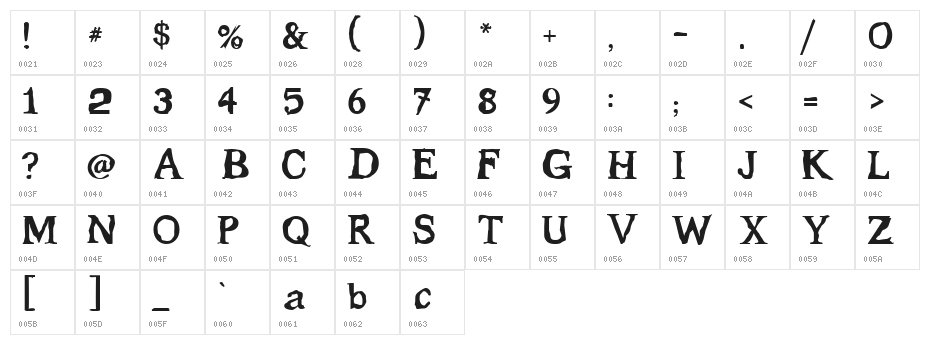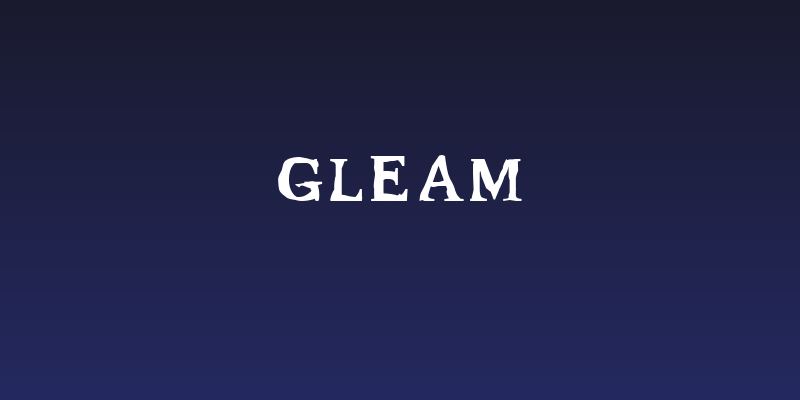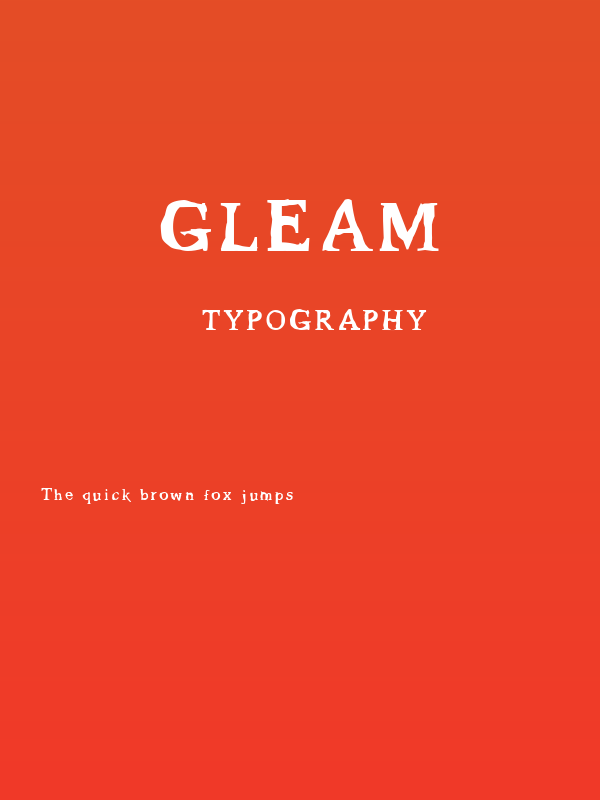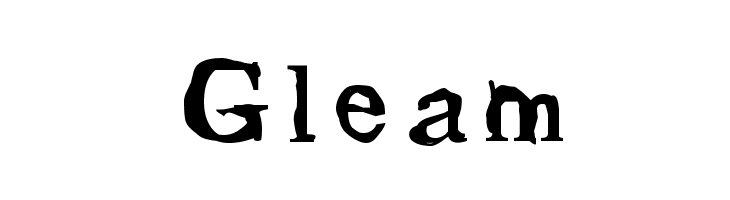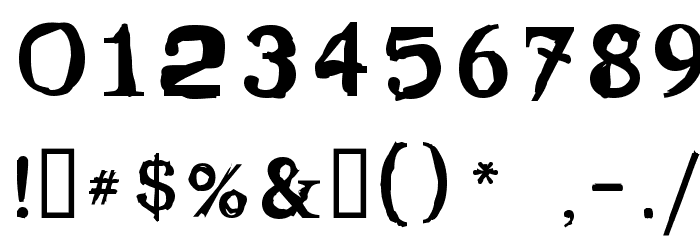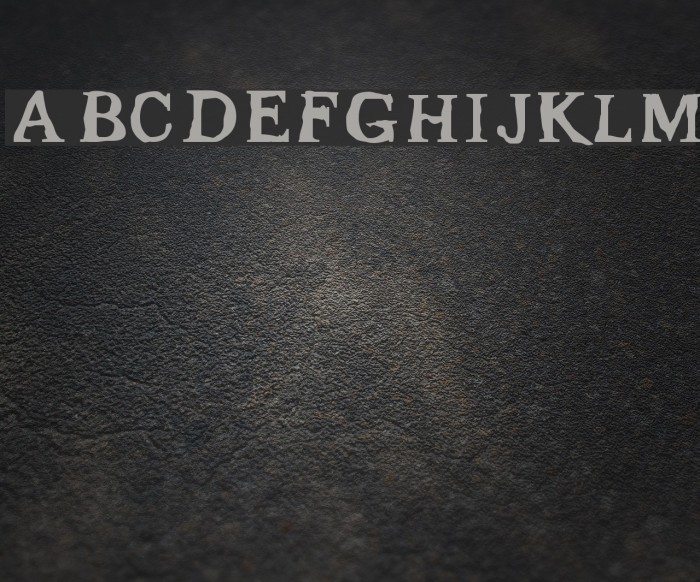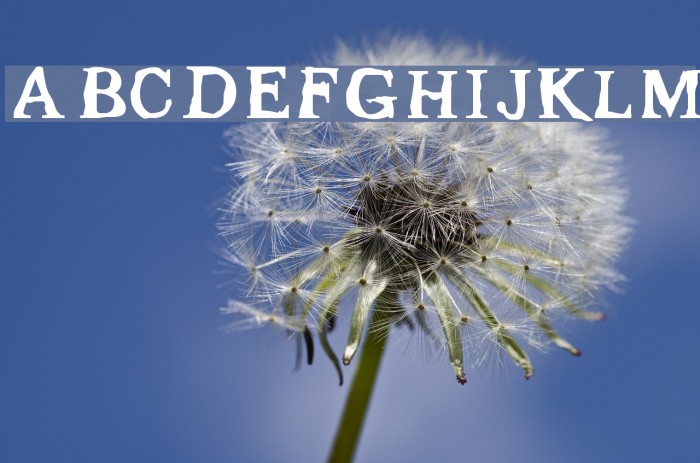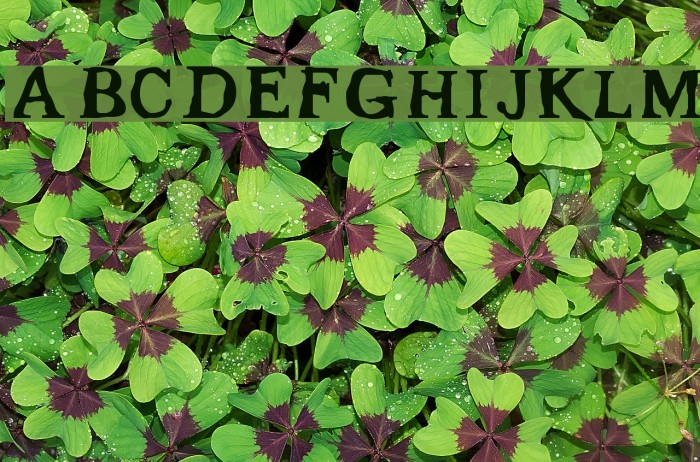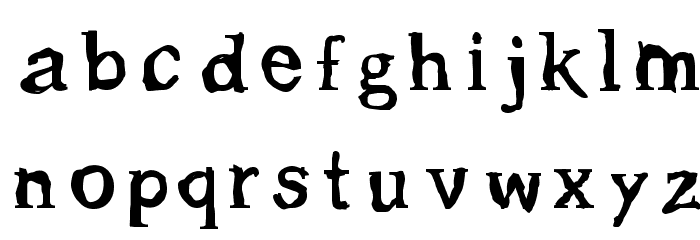
Gleam Font
Gleam Description
This font features a bold and rugged style with a distressed, textured appearance, giving it a vintage and handcrafted feel. The uppercase letters are bold and slightly irregular, adding to the rustic charm. The lowercase letters maintain the same distressed look, with some characters having unique flourishes that enhance the overall aesthetic. The numerals are bold and consistent with the letterforms, ensuring readability while maintaining the font's distinctive style. Special characters are included, matching the overall rugged and handcrafted appearance. This font is ideal for projects that require a touch of vintage or handcrafted appeal.
GLEAM UPPERCASE
GLEAM LOWERCASE
GLEAM OTHER CHARS
| Proposed Projects | Ideal for vintage-themed posters, logos, packaging, and branding materials that require a rustic and handcrafted look. |